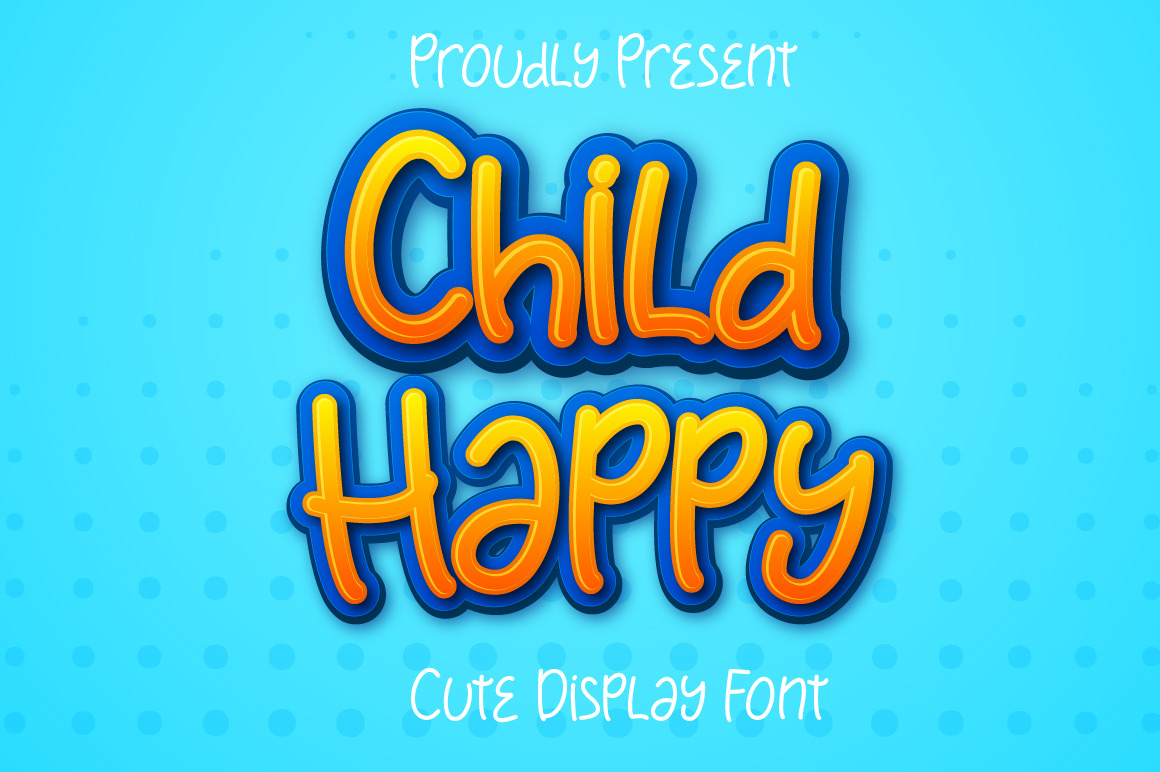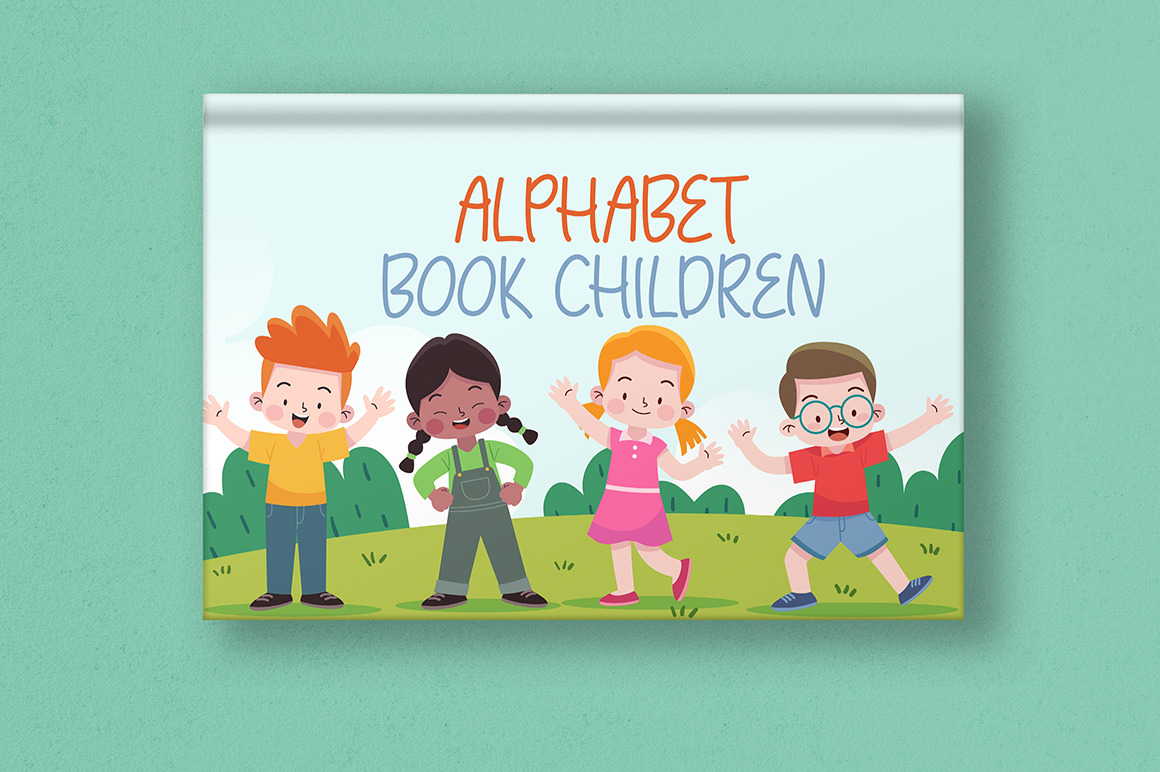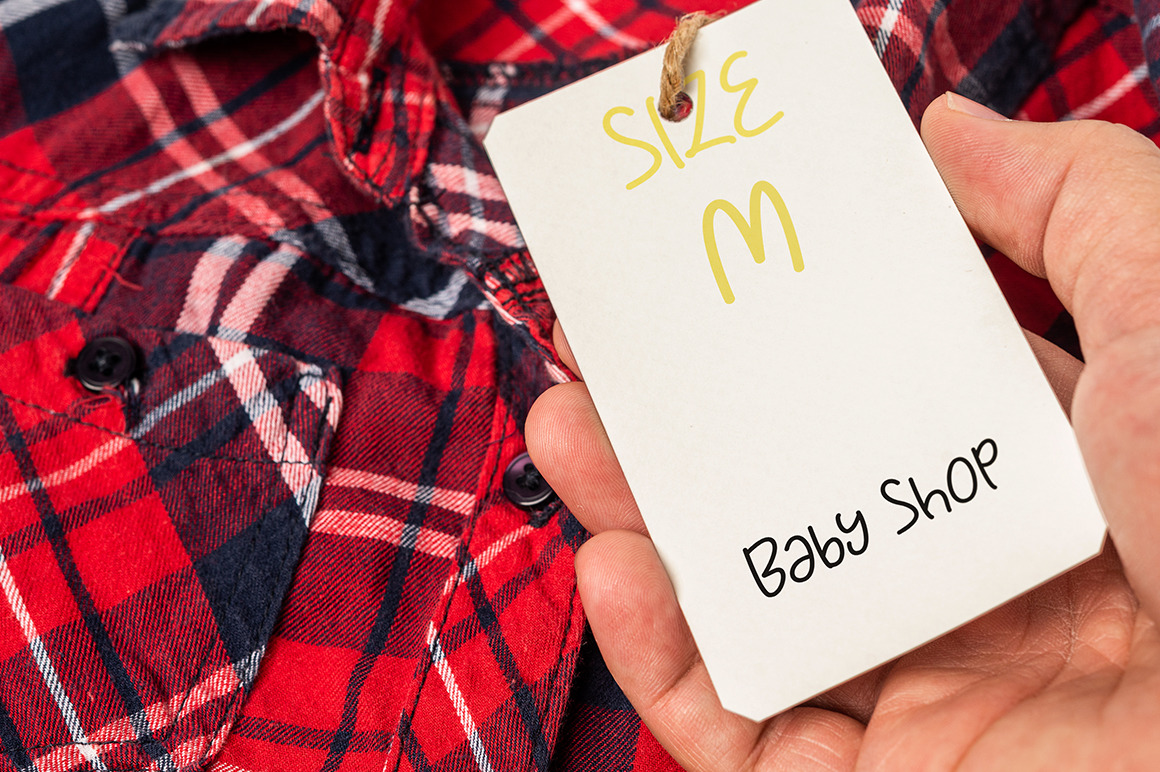
Child Happy Font
Child Happy a delightful display font which suitable to use for children occasion and related to fun event.
Child Happy would perfect for photography, watermark, social media posts, advertisements, logos & branding, invitation, product designs, label, stationery, wedding designs, product packaging, special events or anything that need handwriting taste.